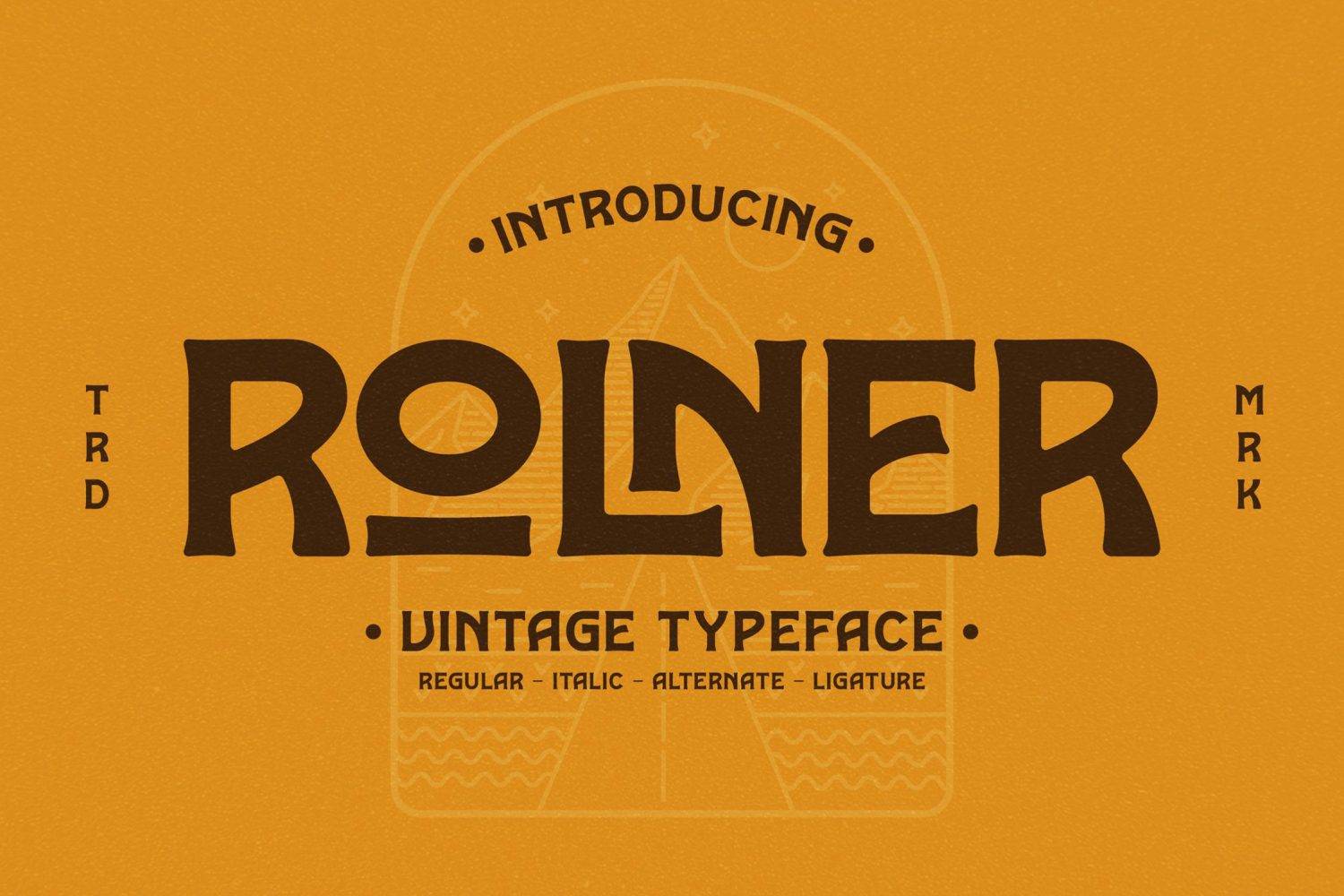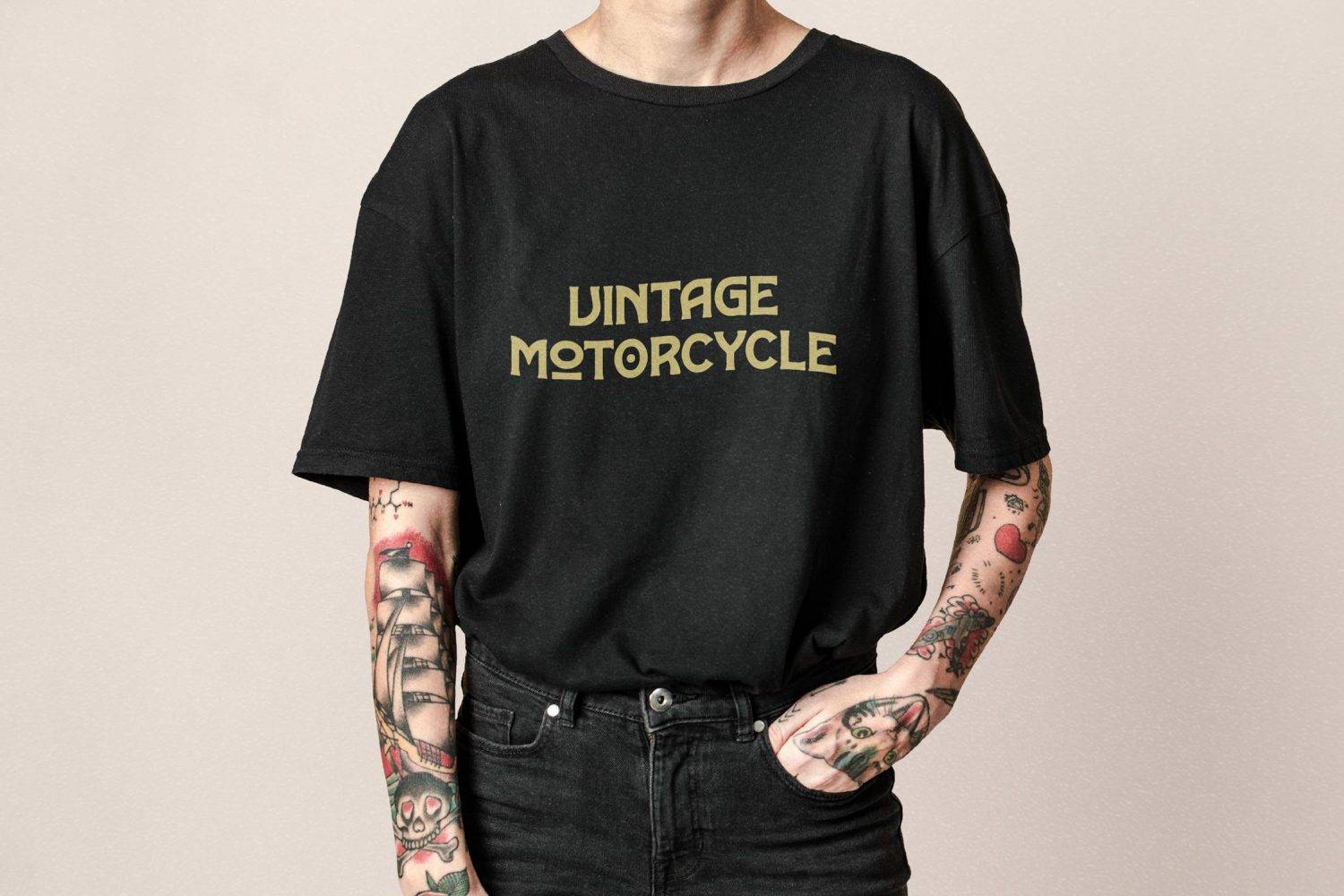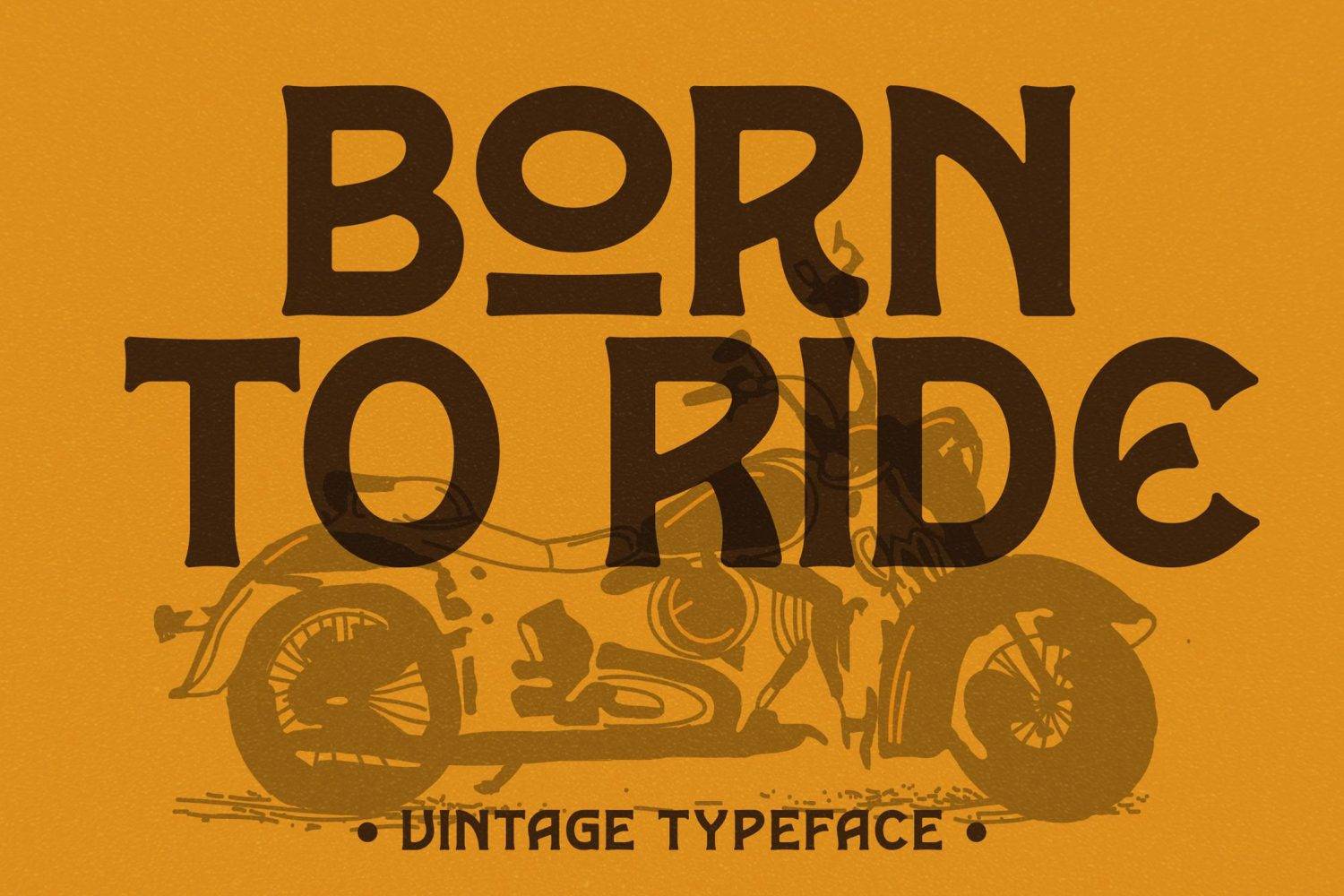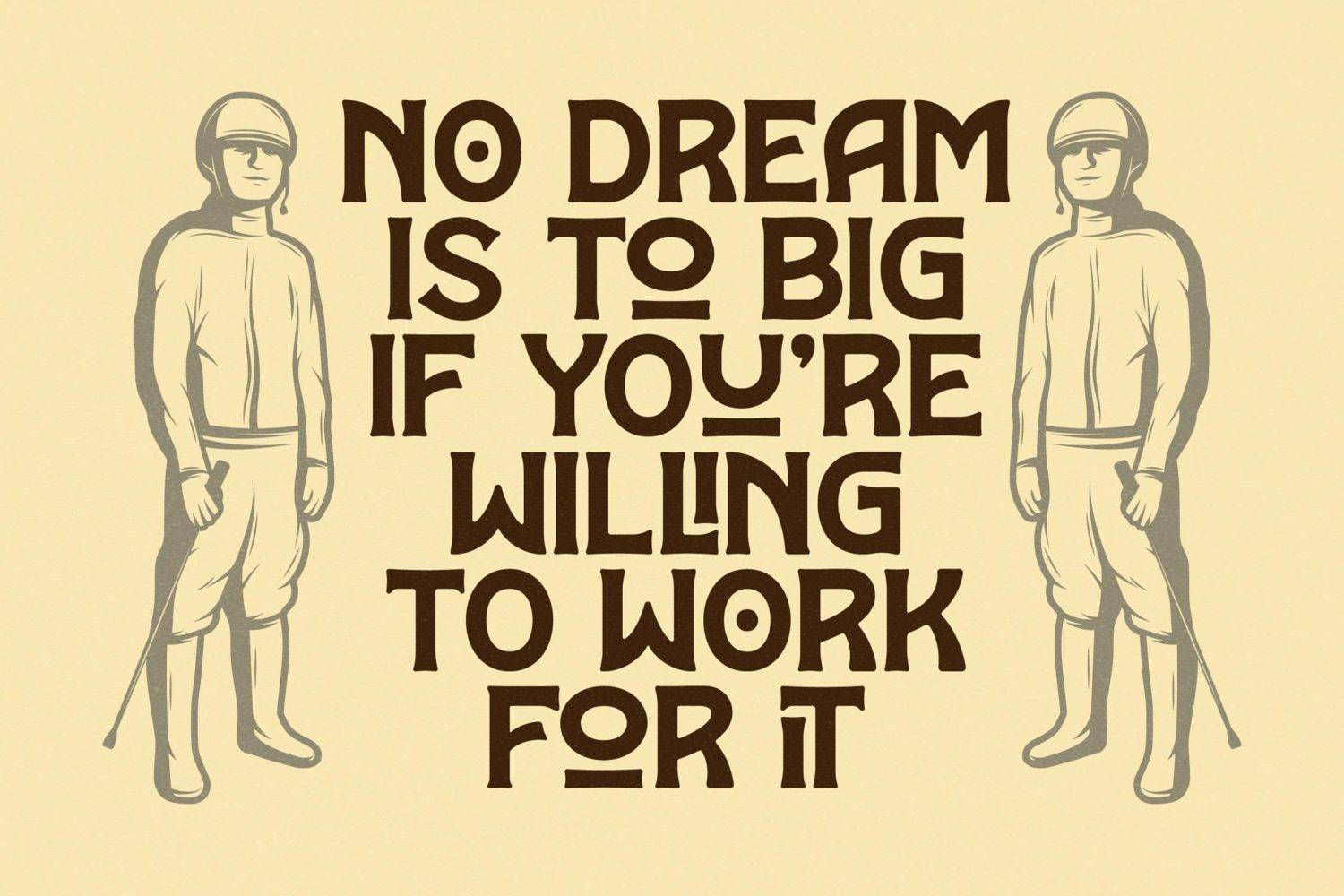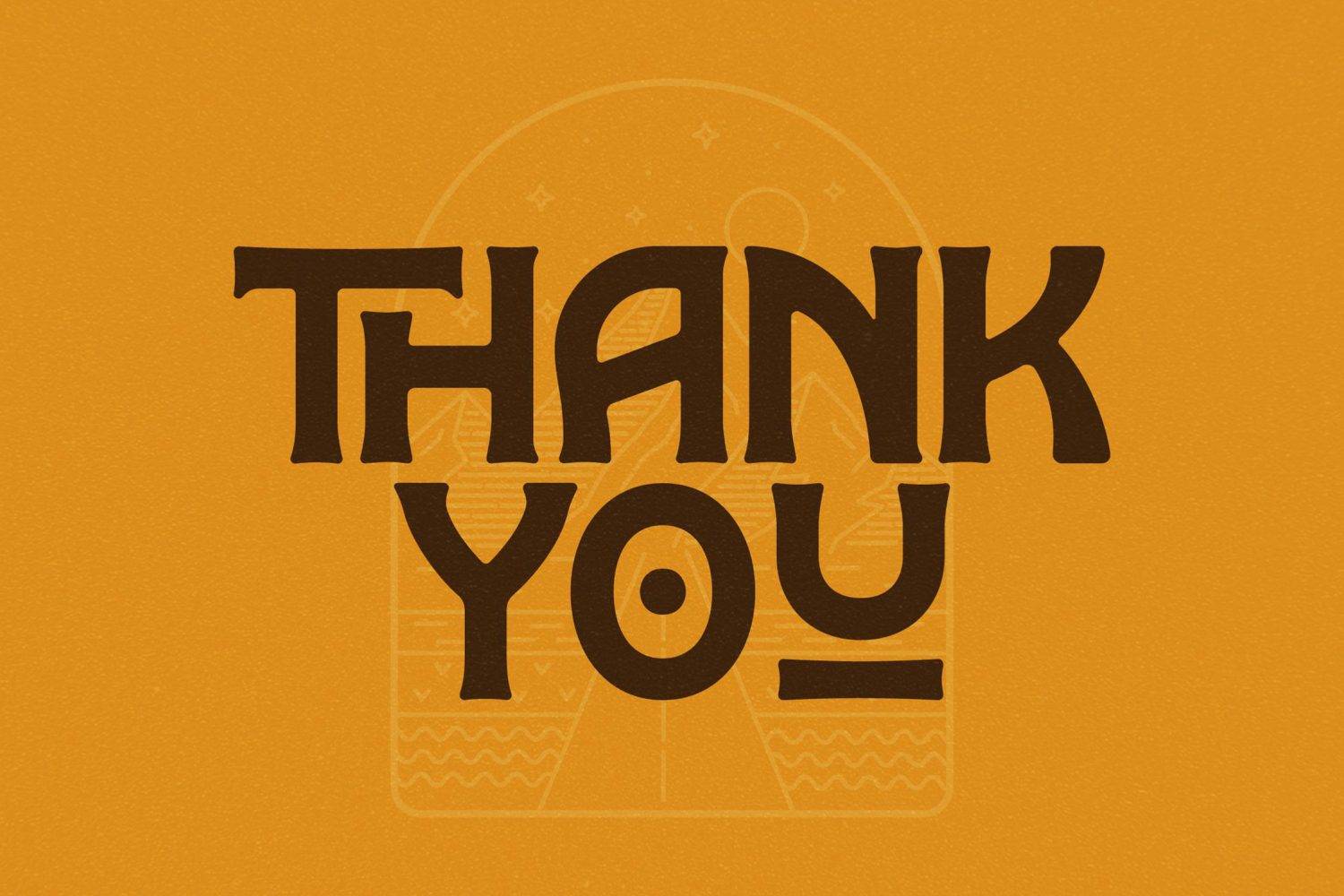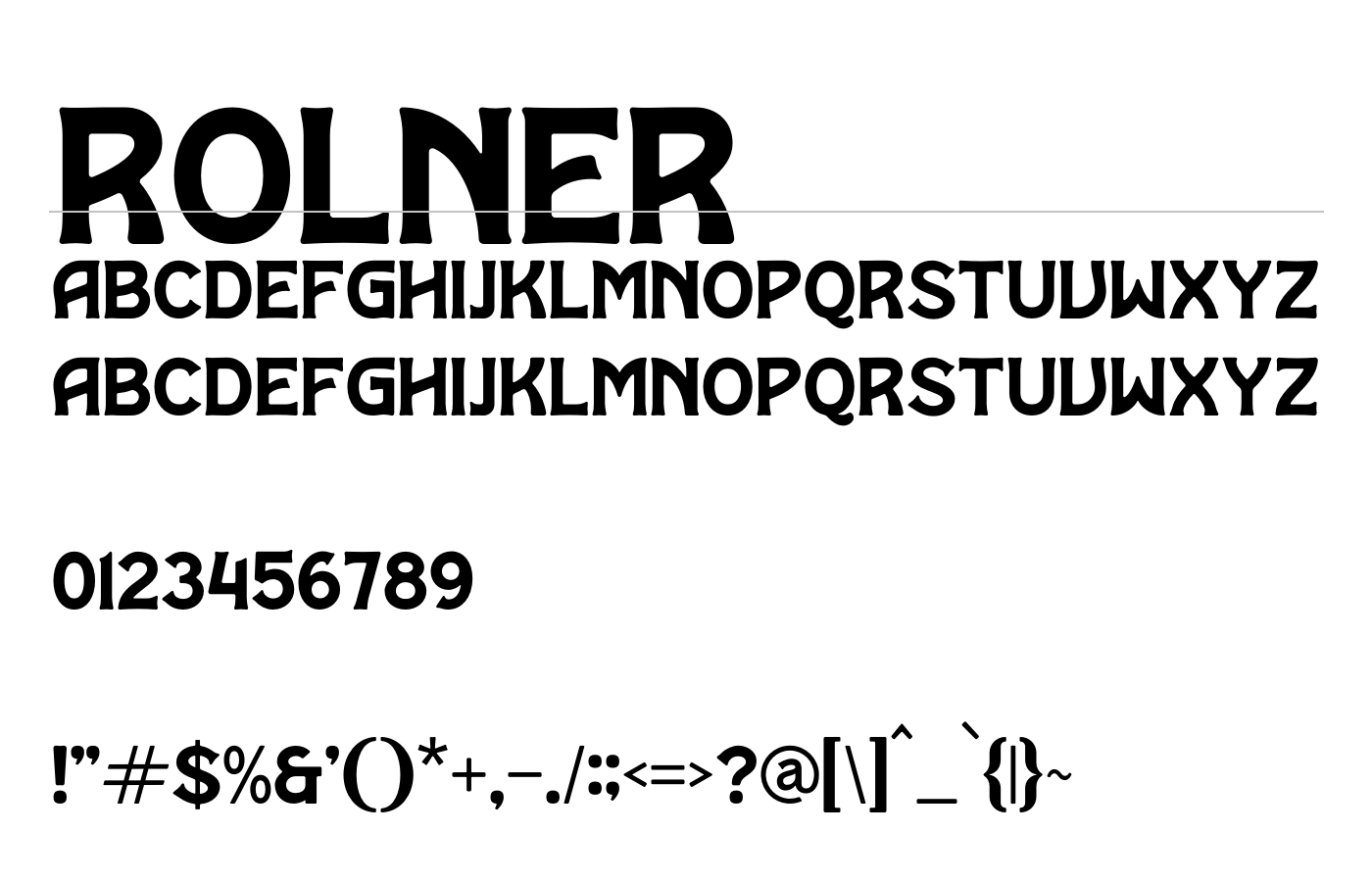
Rolner is a bold, playful sans serif font with a slightly quirky and handcrafted feel, characterized by its uneven stroke widths and gently curved edges. Its tall x-height and compact letterforms make it highly legible while adding a friendly, informal personality that works well for creative logos, posters, and casual branding. This font is perfect for designs seeking a fun, approachable style without sacrificing clarity or impact.
Rolner Font
About Rolner Font